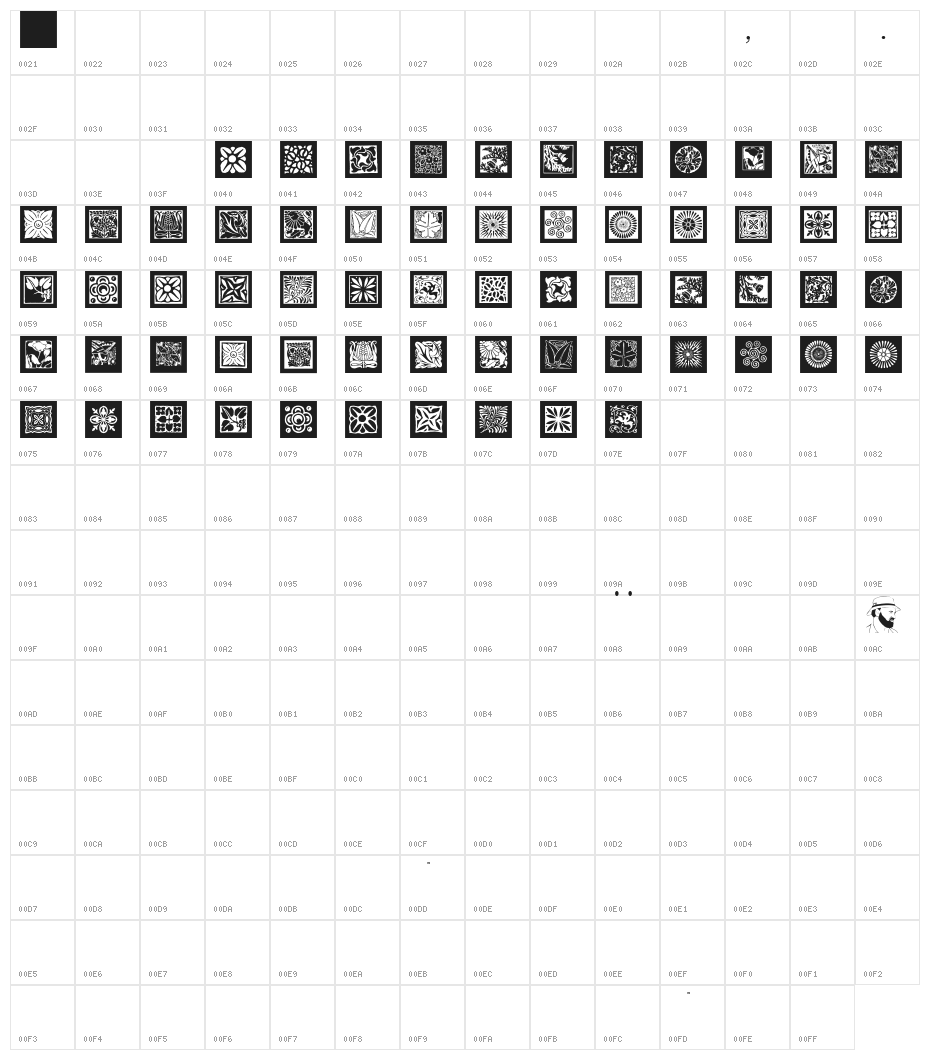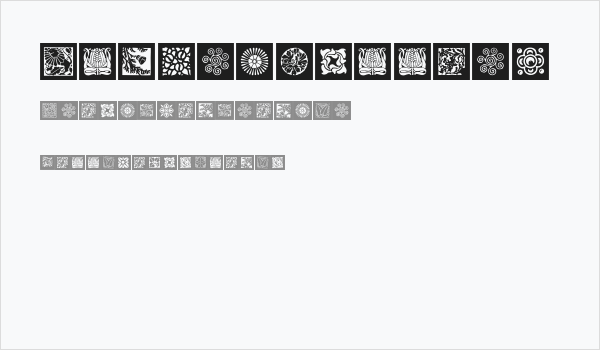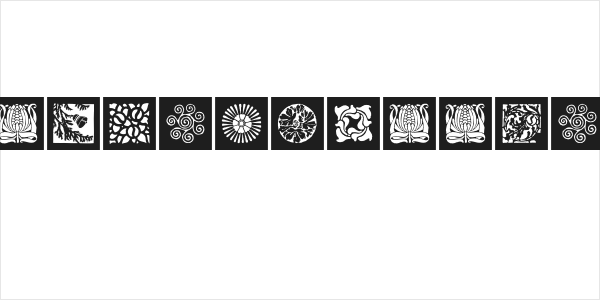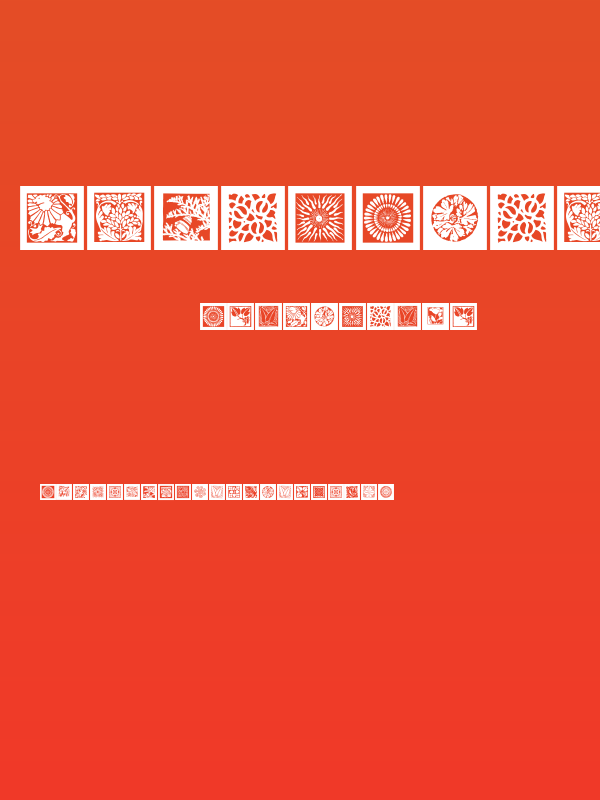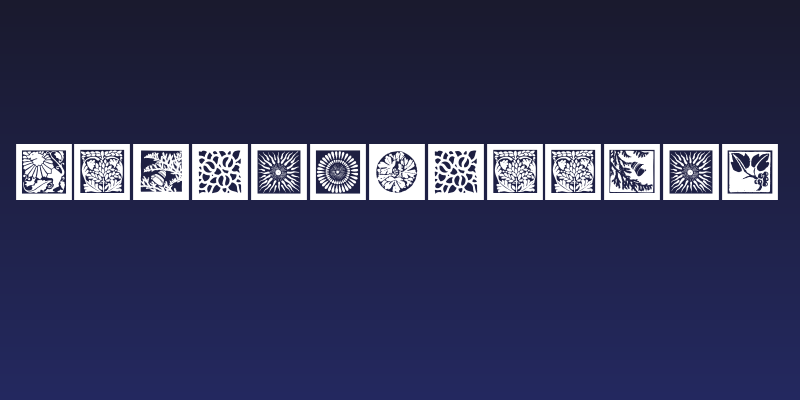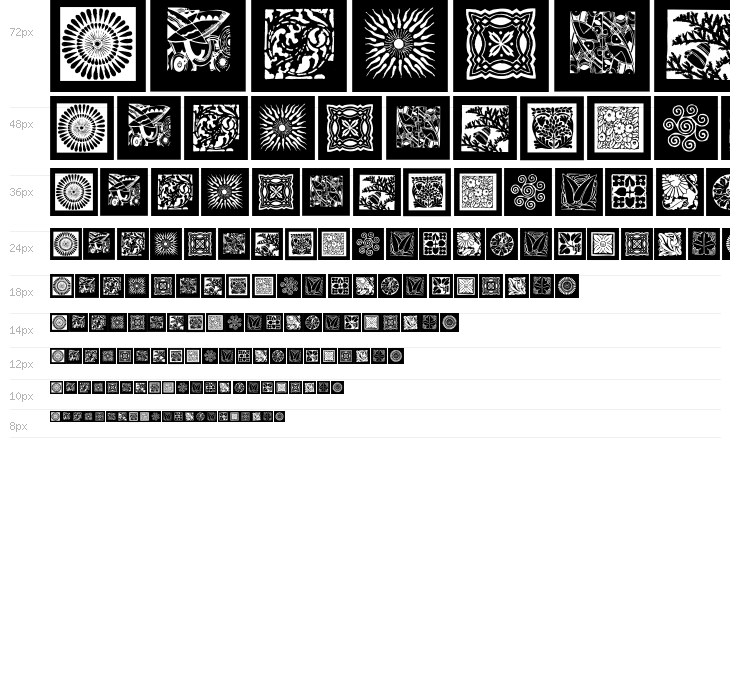
OldArtGallery Font
OldArtGallery Description
A decorative collection of intricate, ornamental square motifs featuring floral, geometric, and abstract patterns in high-contrast black and white. Each character is represented by a unique, detailed tile design reminiscent of vintage or historical art gallery tiles.
| Overall Style | Vintage, Decorative, Artistic |
| Use Case | Logos, Headlines, Decorative initials, Art projects |
| Proposed Projects | Book covers, posters, invitations, branding for art galleries, decorative headings, packaging, and artistic projects. |